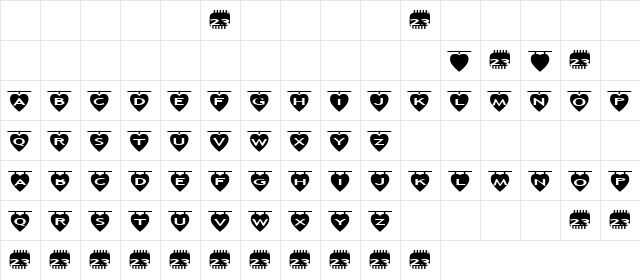
Zone23_Two Kinds of Love III Normal
Design Context for Zone23_Two Kinds of Love III
Zone23_Two Kinds of Love III is a composed and adaptable typeface that performs quietly and consistently across a wide range of design contexts.